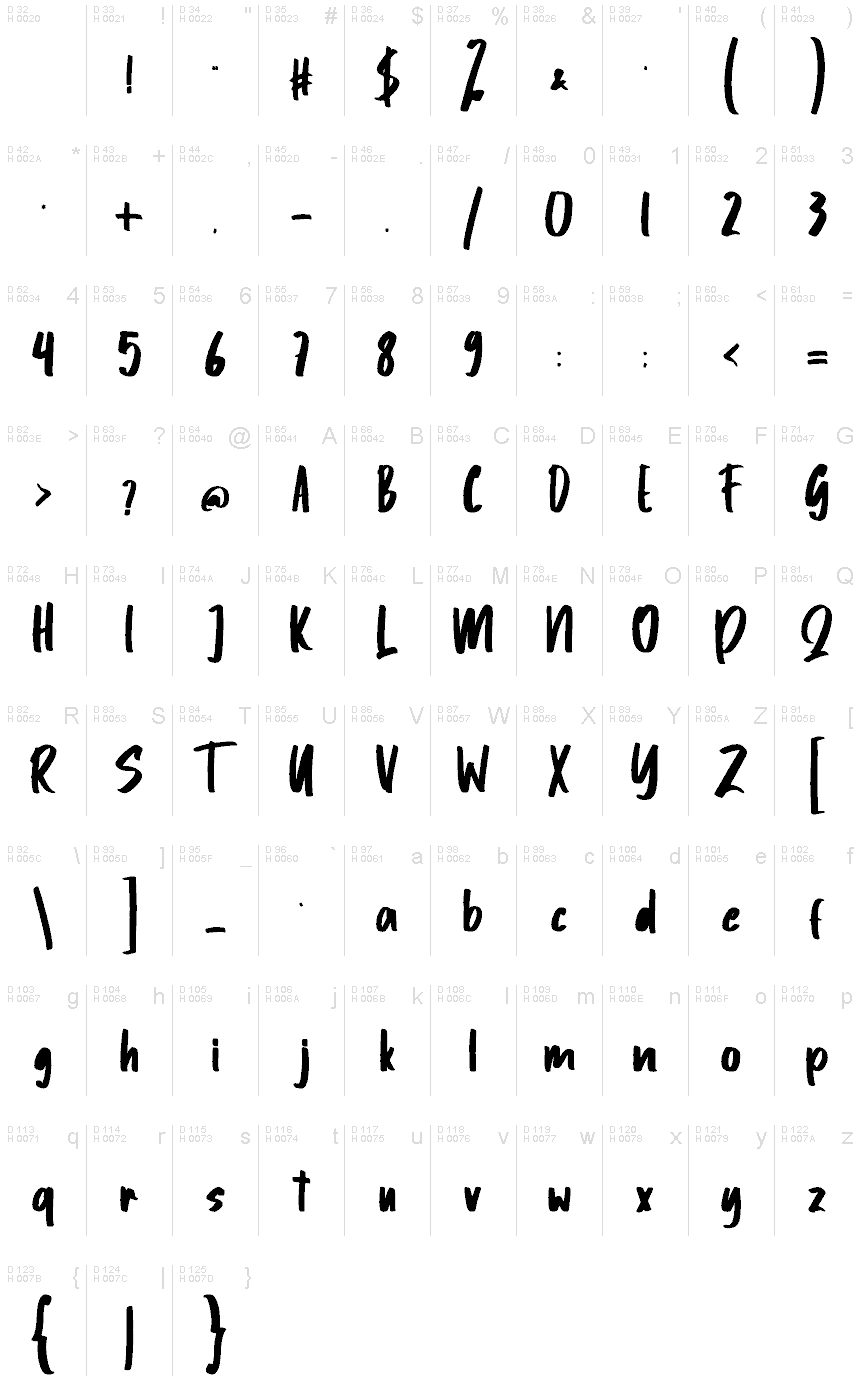
Qalbite
All of us need to occasionally relax by simply enjoying the company of close friends with drinks, snacks, and music. That’s what this handwritten Qalbite font designed by Skiiller Studio offers you: a sense of familiarity and community. With its relaxed and approachable curves, Qalbite conveys the essence of youthfulness, originality, and good vibes.